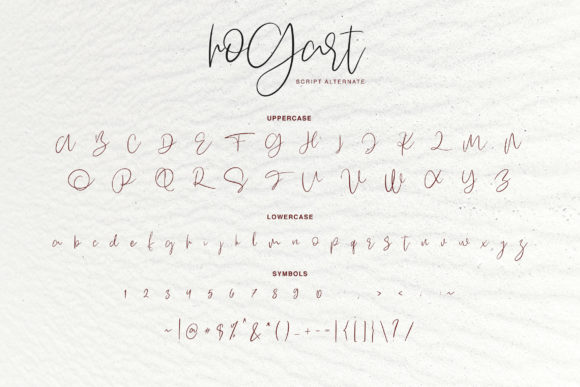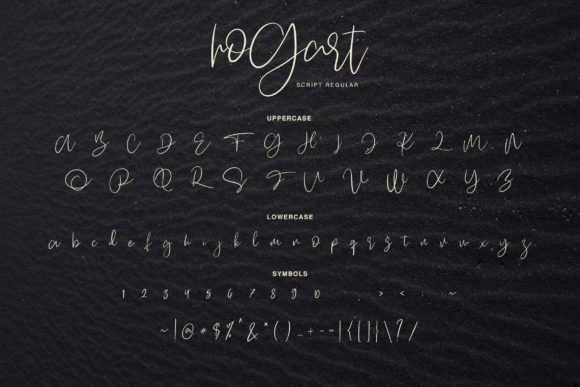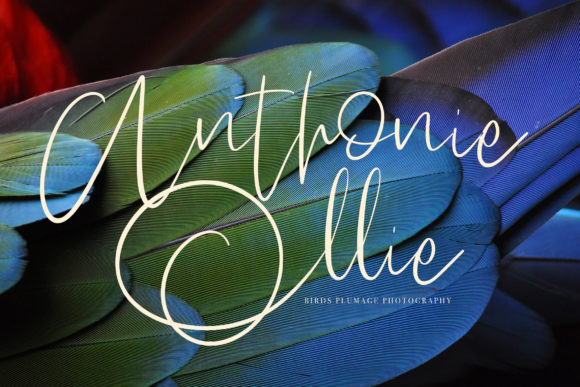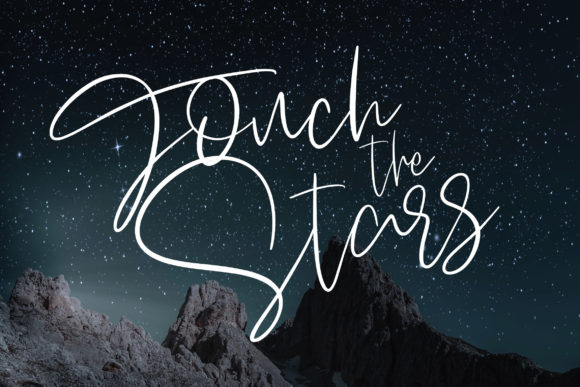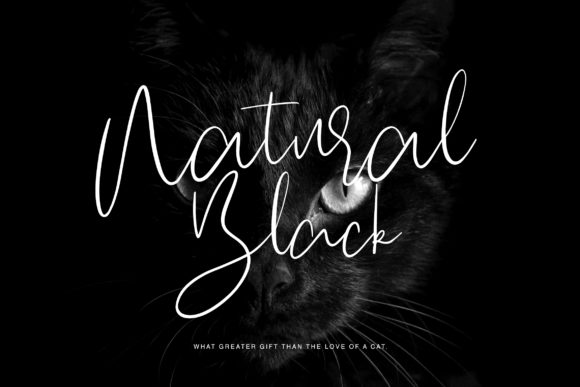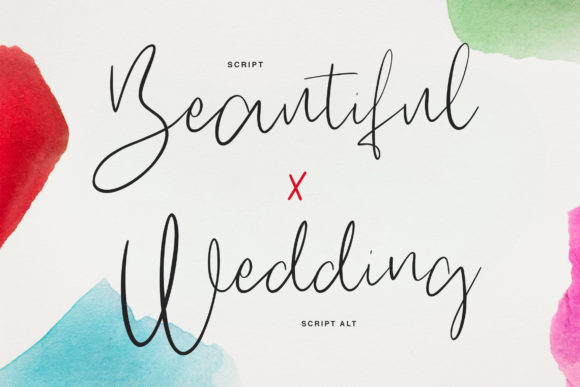
Introduction to Hogart Script Font
Do you ever find yourself staring at a blank page, waiting for the perfect font to spark your creativity? That’s exactly what happened to me when I discovered the Hogart Script Font. Its unique, handcrafted feel instantly transported me to a world of creative possibilities.
As designers, we’re always on the lookout for high-quality design resources that can elevate our projects and give them that extra special touch. The Hogart Script Font is more than just a font – it’s a design resource that can add a layer of sophistication and charm to any creative project. With its free download and transparent background, it’s the perfect addition to any design toolbox.
Whether you’re working on a personal project or a client’s design, the Hogart Script Font is sure to be a valuable asset. Its unique character and charm make it a standout choice for any creative project, and its high quality ensures that your designs will always look their best.
Key Features of Hogart Script Font
- Unique script font style with a modern twist, perfect for adding a touch of sophistication to any design project.
Honest Review: Hogart Script Font
I recently had the chance to work with the Hogart Script Font, and I must say it’s been a game-changer for my creative projects. This font is perfect for those looking for a high-quality, elegant script font to elevate their designs.
- ✨ Beautifully crafted with intricate details that make it perfect for invitations, wedding designs, or any other romantic-themed project.
- ⚠️ May not be ideal for headings or titles due to its cursive nature.
- ⚠️ Limited character set, which might require some adjustments for longer texts.
Overall, I’m really impressed with the Hogart Script Font. It’s a fantastic addition to any designer’s toolkit, and its free download makes it accessible to designers of all levels. Whether you’re working on a wedding invitation or a romantic advertisement, this font is sure to make your design stand out.
To get the most out of Hogart Script Font, use it in combination with other design elements, such as images and graphics. Experiment with different font sizes, colors, and styles to create a unique and eye-catching design. The font is also versatile, making it suitable for a wide range of creative projects.
Hogart Script Font is commonly used in wedding invitations, birthday party invitations, and other creative projects that require a touch of elegance and sophistication. The font is also suitable for use in branding and marketing materials, such as business cards and brochures.